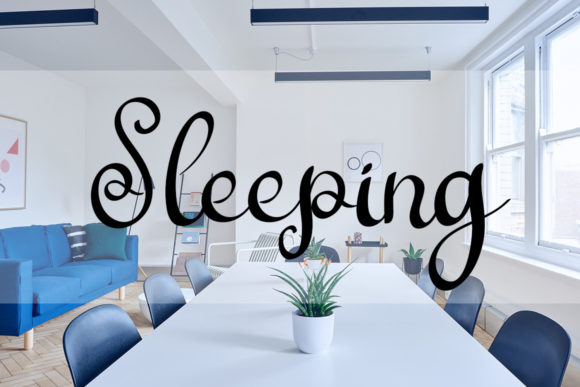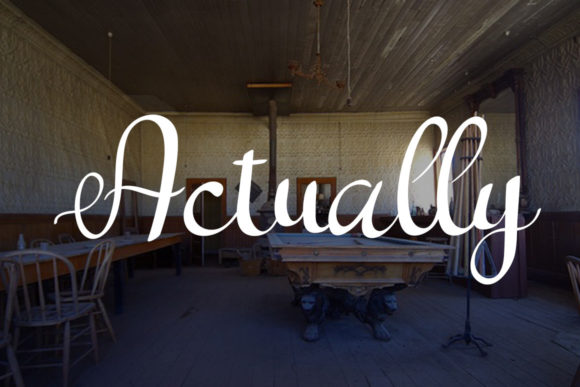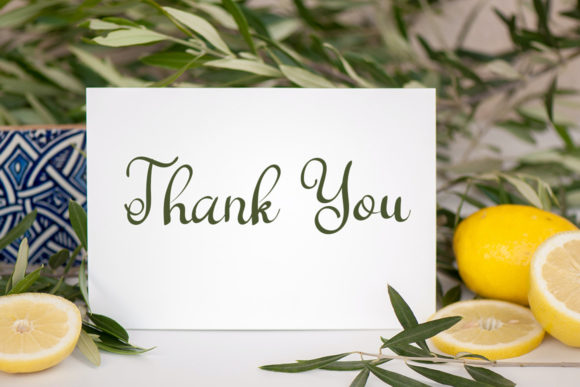
The Perfect Stroke: Introducing the Billiardy Font
Have you ever stared at a blank canvas, feeling the pressure to create something truly unique? The cursor blinks, taunting you with its silence. Suddenly, a spark of inspiration strikes, and the words begin to flow. This is the moment when creativity knows no bounds, and the right font can be the difference between a good design and a great one.
Enter the Billiardy Font, a stylish script font that exudes confidence and versatility. With its chic, trendy aesthetic, this font is perfect for designers looking to add a touch of sophistication to their projects. Its stylish alternates and ligatures make it an invaluable tool for any creative endeavor.
Whether you’re a seasoned pro or a budding designer, the Billiardy Font is an essential addition to your toolkit. Its value lies in its ability to elevate your work, making it stand out in a crowded market. With the Billiardy Font, you’ll be able to bring your vision to life with style and precision.
Billiardy Font Key Features
- Unique Characteristics: Billiardy Font features a distinctive, hand-drawn design with a vintage aesthetic, making it ideal for use in retro-themed designs, posters, and advertisements.
- Line Spacing and Kerning: The font has carefully crafted line spacing and kerning, ensuring that text is easy to read and visually appealing, even at smaller font sizes.
- Scalability: The font is designed to be highly scalable, allowing it to maintain its clarity and legibility even when resized or used in small text applications.
Designer Review: Billiardy Font
At first glance, Billiardy Font seems like an interesting choice for a typography project. ✨ The font’s unique, eclectic style is sure to grab attention and add a touch of whimsy to any design. I particularly appreciate the way the font’s irregularities are balanced with subtle geometric elements, creating a sense of tension and release.
- ✨ The font’s irregularities add character and visual interest, making it perfect for projects that require a touch of personality.
- ✨ The font’s geometric elements provide a sense of structure and cohesion, preventing it from feeling too chaotic or overwhelming.
However, there are some limitations to consider. ⚠️ The font’s irregularities can also make it difficult to read, particularly at smaller font sizes. Additionally, the font’s unique style may not be suitable for all design projects, particularly those that require a more conservative or traditional approach.
Overall, I think Billiardy Font is a great choice for designers who are looking to add some personality and flair to their projects. However, it’s essential to consider the potential limitations and ensure that the font is used in a way that complements the overall design.
Tips for Getting the Most Out of Billiardy Font
Use Billiardy Font for titles, headings, and emphasis.
Pair it with a clean and simple background to let the font shine.
Billiardy Font is ideal for:
Creating eye-catching titles and headings.
Designing retro-themed graphics and posters.
Adding a touch of elegance to business presentations and documents.